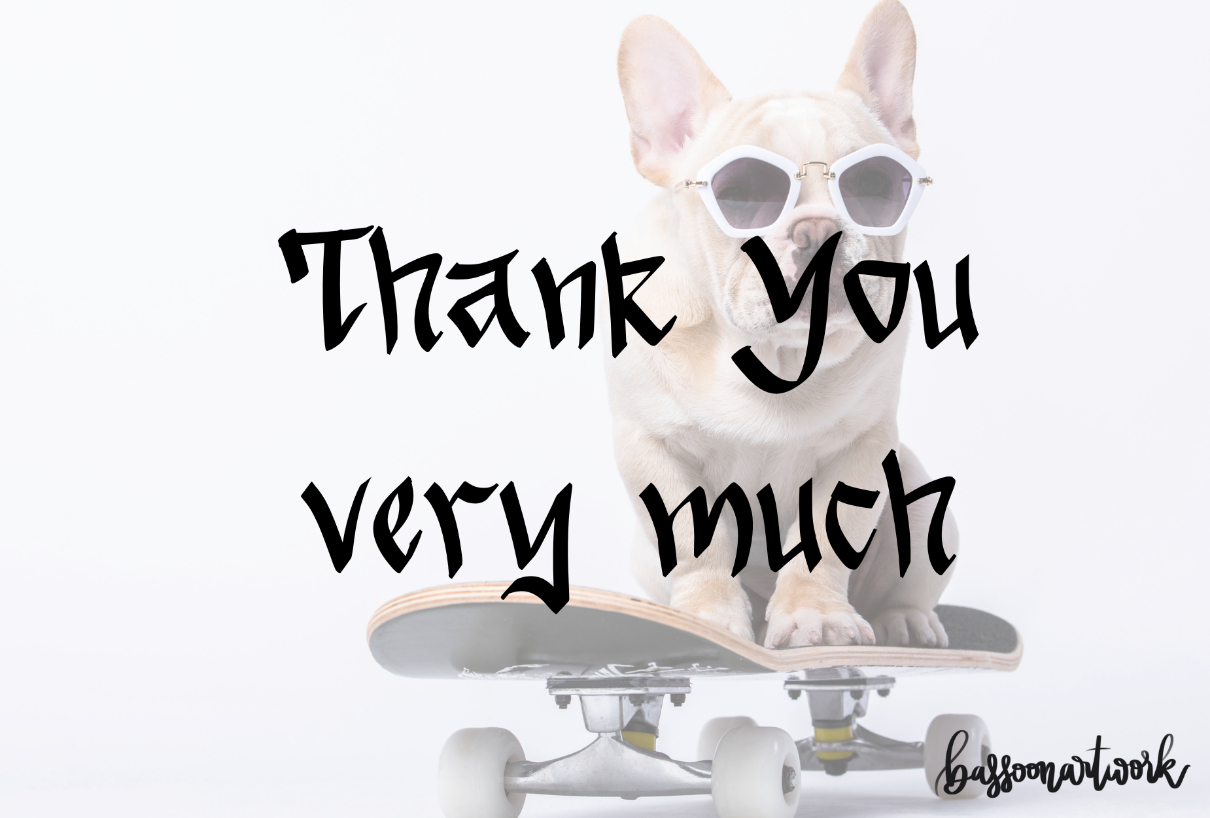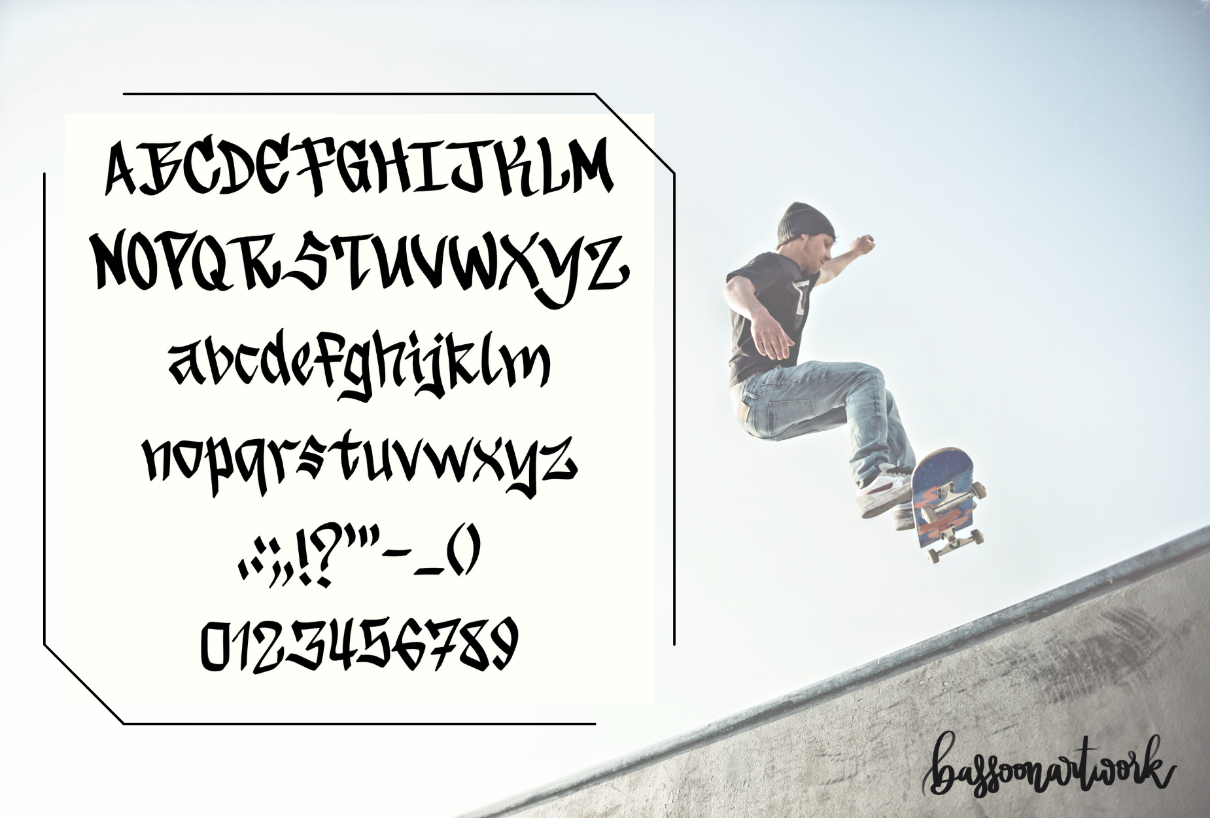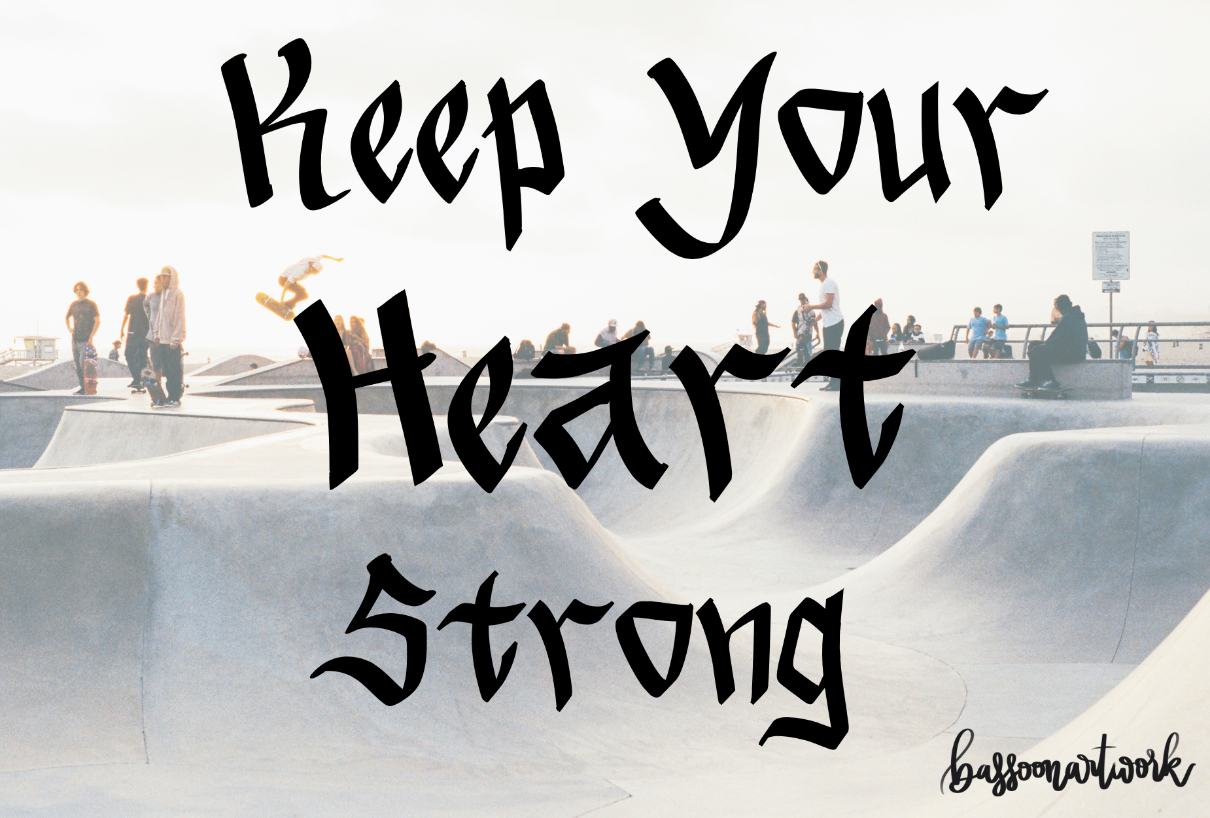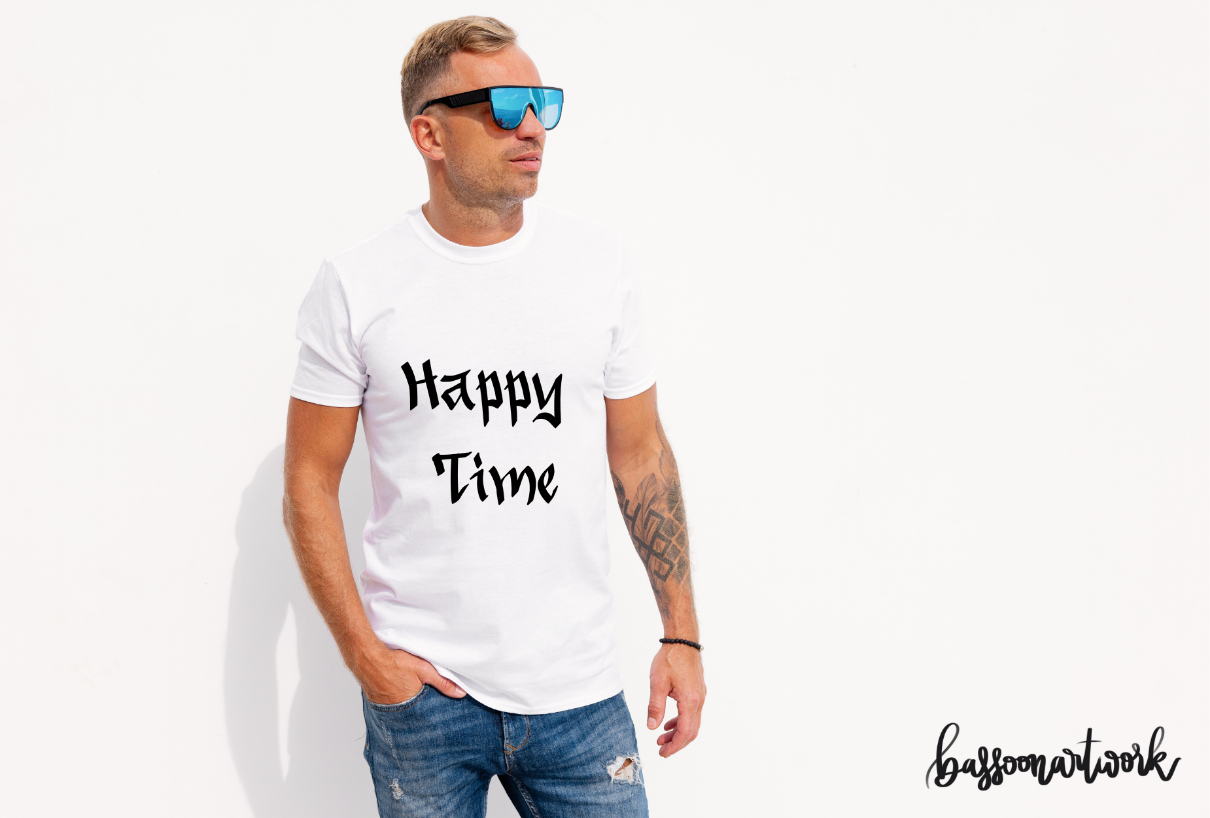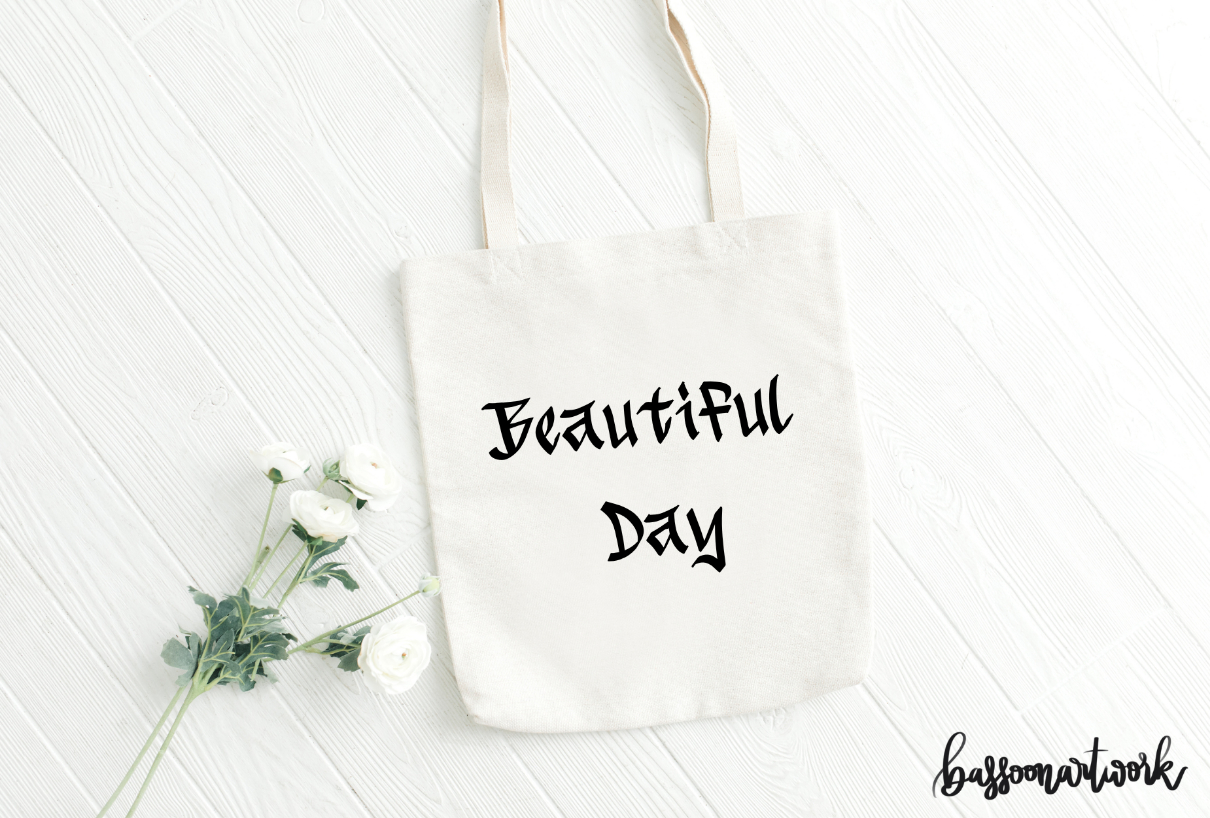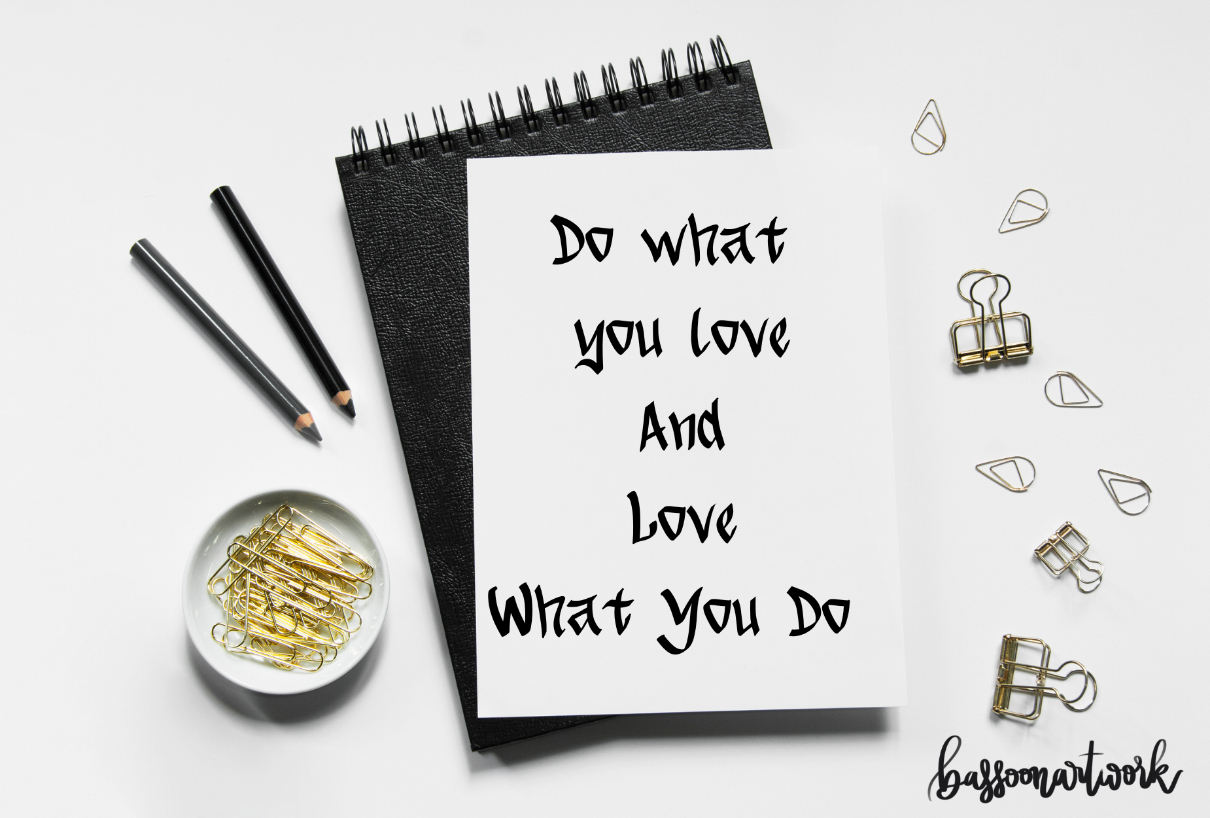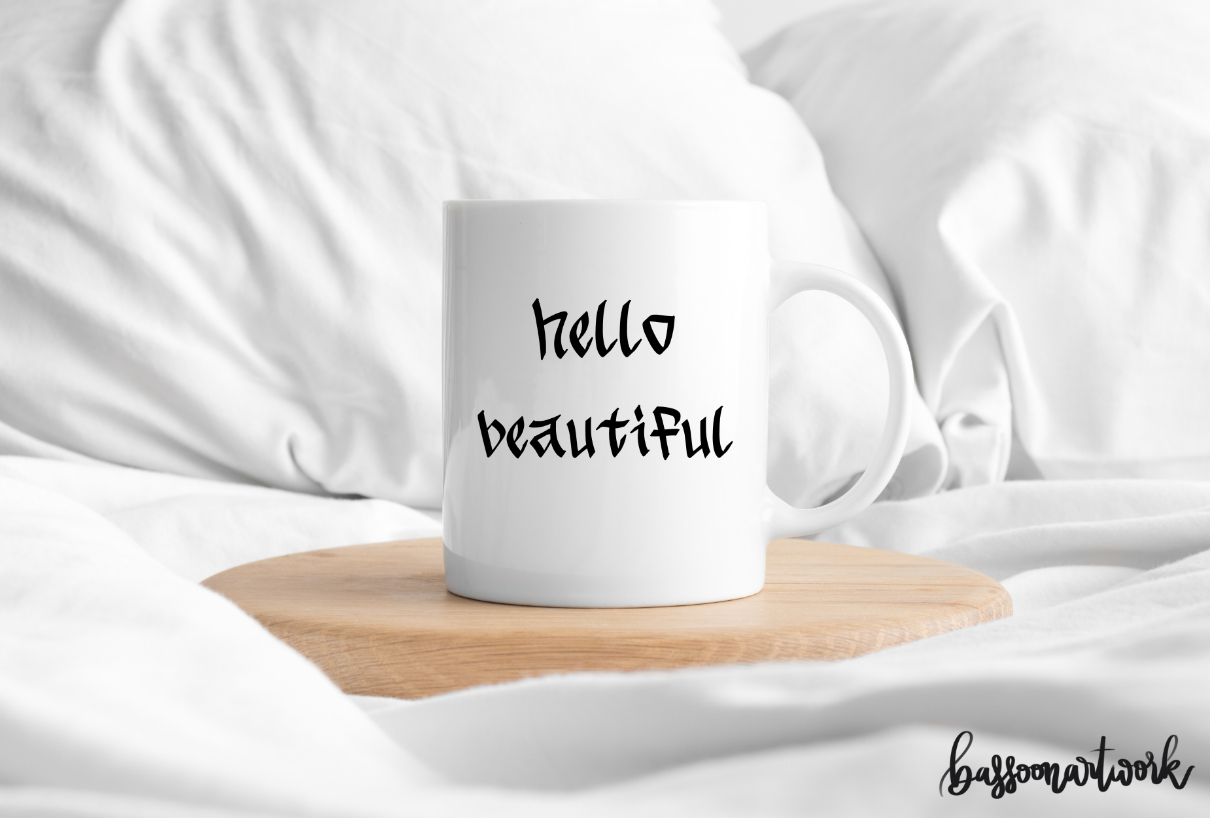
Skateboard Graffiti Font
About Skateboard Graffiti Font
Skateboard graffiti is a cool and trendy blackletter font. It is suitable for use in graffiti, street art, and can also be used to make cool t-shirts, mugs, pillows, and key chains.